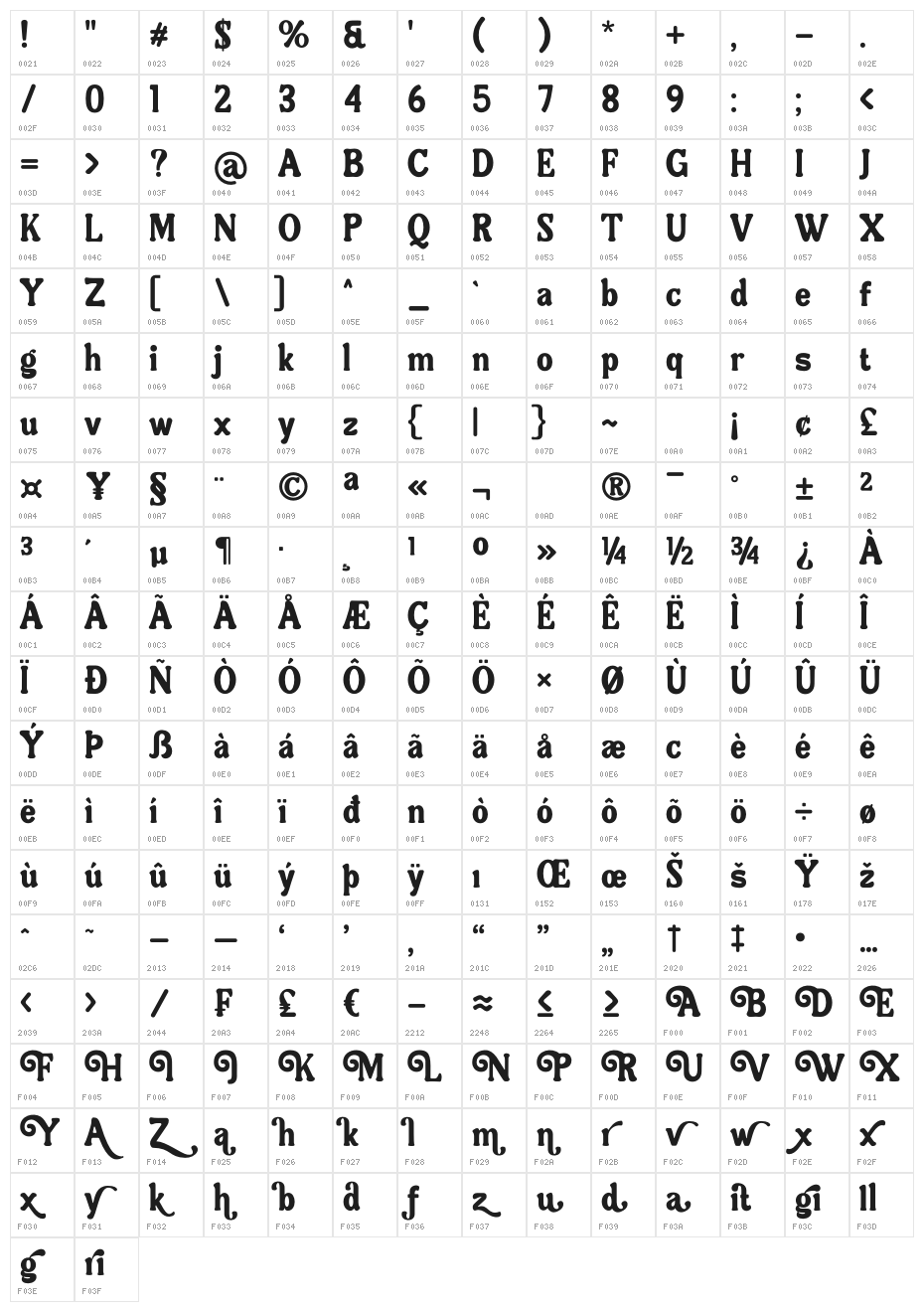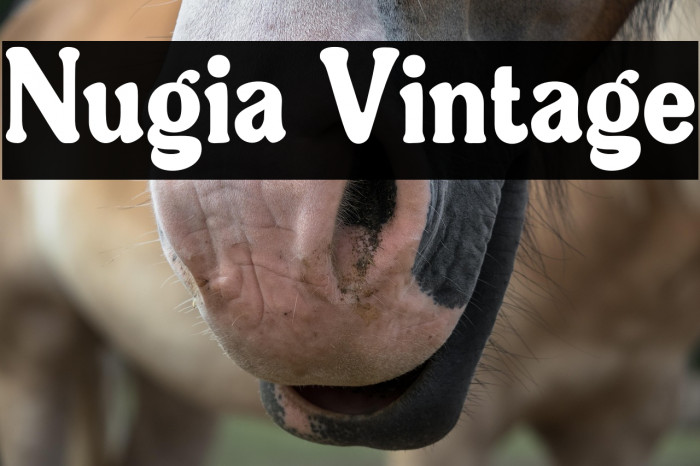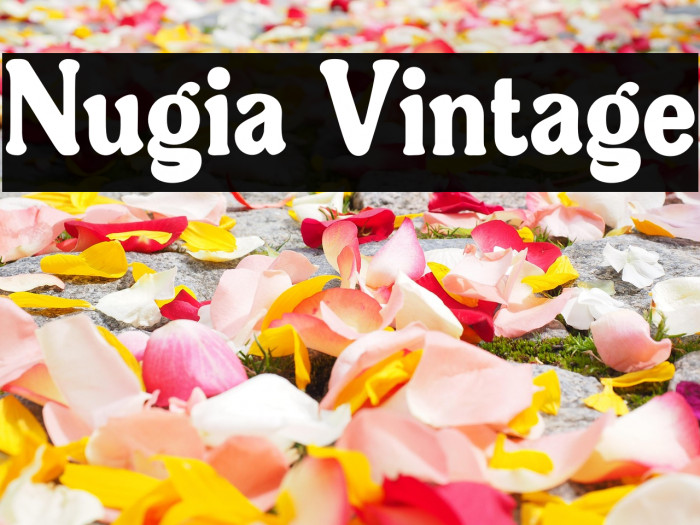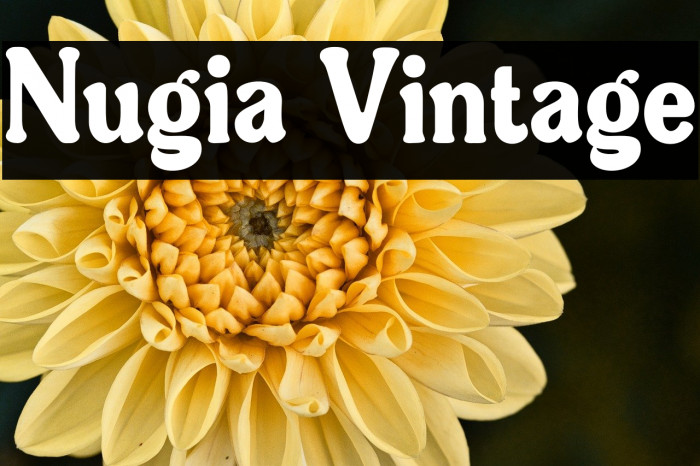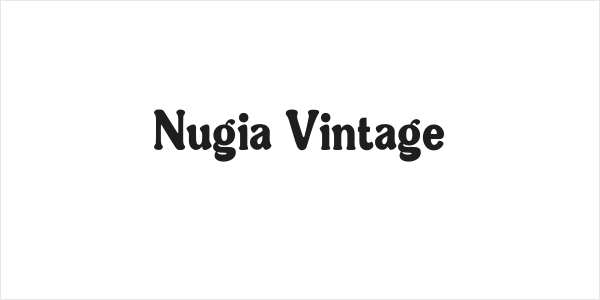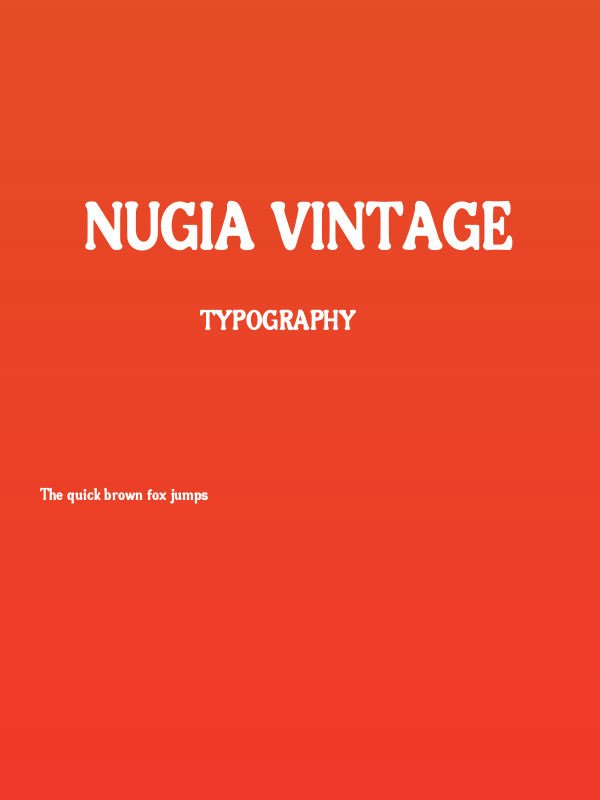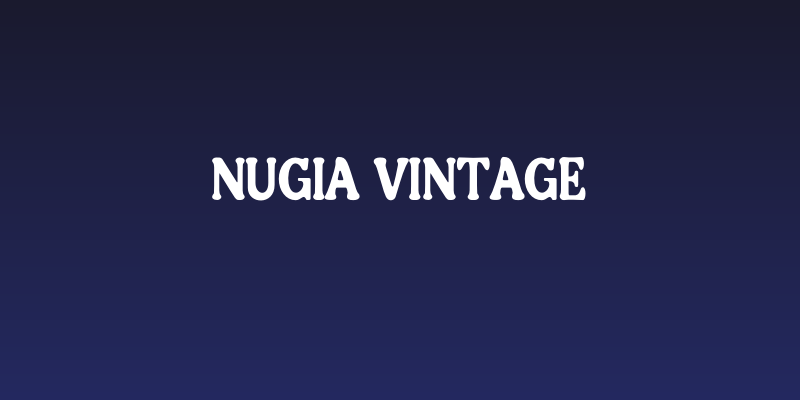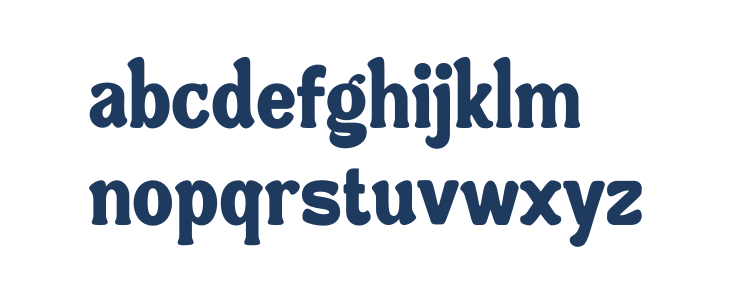
Nugia Vintage Font
Nugia Vintage Description
This font features a bold and expressive style with a vintage flair. The characters have a strong presence, with thick strokes and rounded edges that give them a friendly and approachable look. The uppercase letters are slightly taller than the lowercase, maintaining a consistent width that enhances readability. The numbers are equally bold, matching the style of the letters, while the special characters are distinct and well-defined. The overall design is reminiscent of retro signage or posters, making it ideal for projects that require a touch of nostalgia.
| Proposed Projects | Perfect for vintage-themed posters, retro branding, signage, and packaging designs. |